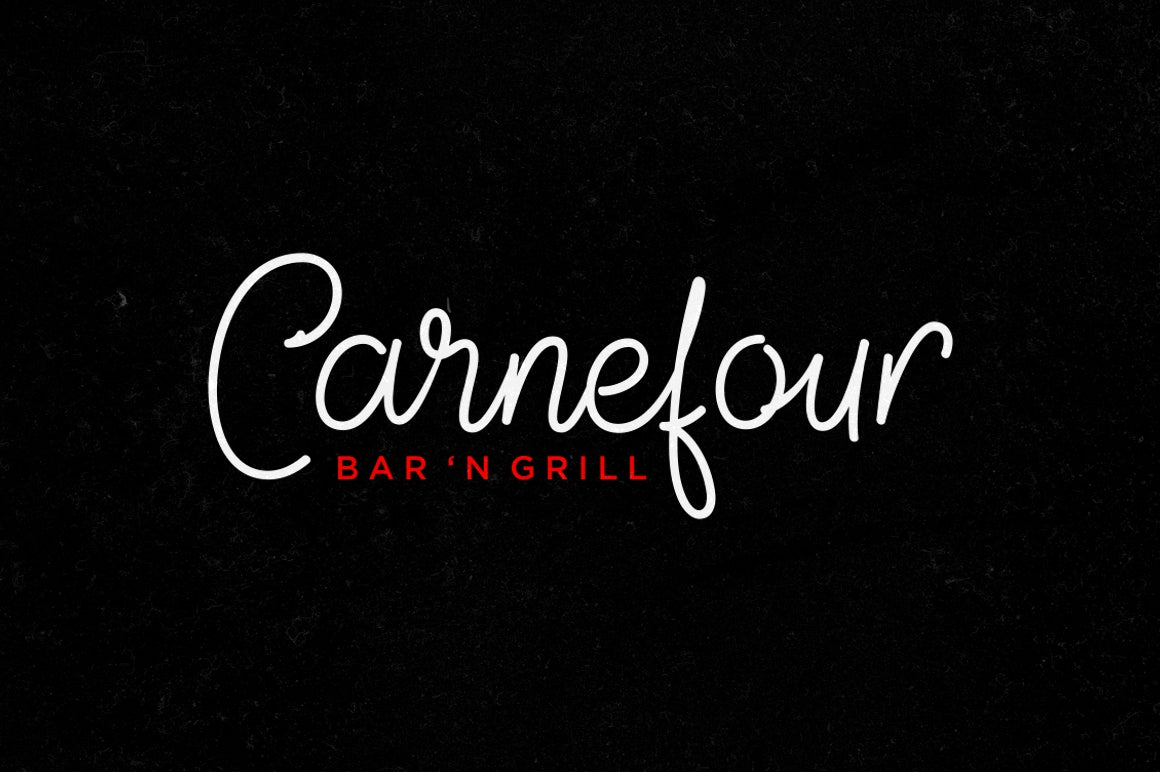
Free Jalisco Script FONT
Download and enjoy this free jalisco script font. Cool typeface to showcase your designs in a modern way. This is a downloadable typeface file brought to you by Pixelify. Showcase your designs like a graphic design pro by adding a new touch with this beautiful font.